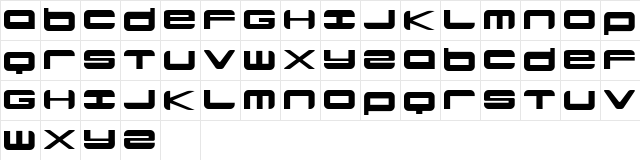
ObcessedBomb Regular
Design Context for ObcessedBomb Typeface
ObcessedBomb offers clean, dependable letterforms without strong stylistic allegiance, making it a practical choice for designers who need flexibility.
Pro Tip: Pair ObcessedBomb with a font of contrasting weight or personality to build a more expressive typographic hierarchy.